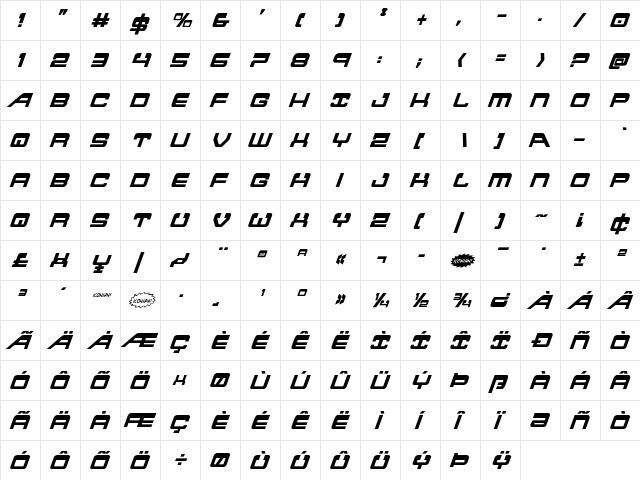
Atlantia Condensed Italic Font Preview
Atlantia Condensed Italic Condensed Italic
Atlantia Condensed Italic Font Details
| Style | Condensed Italic |
Design Context for Atlantia Condensed Italic Typeface
Atlantia Condensed Italic is a composed and adaptable typeface that performs quietly and consistently across a wide range of design contexts. The slanted form adds forward momentum and visual energy. The condensed width makes it efficient for tight spaces without sacrificing legibility.
Pro Tip: Use Atlantia Condensed Italic for emphasis, pull quotes, and subheadings where its slanted energy can add rhythm to the layout.